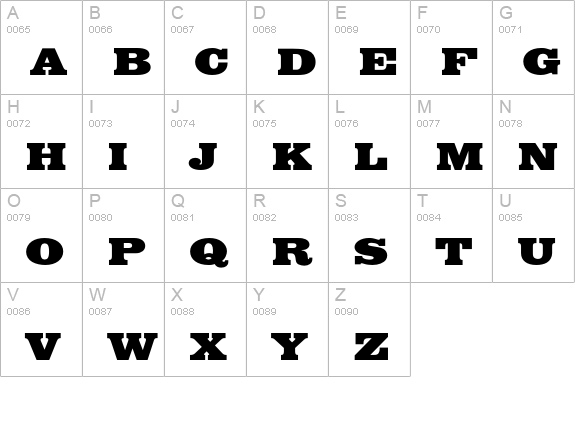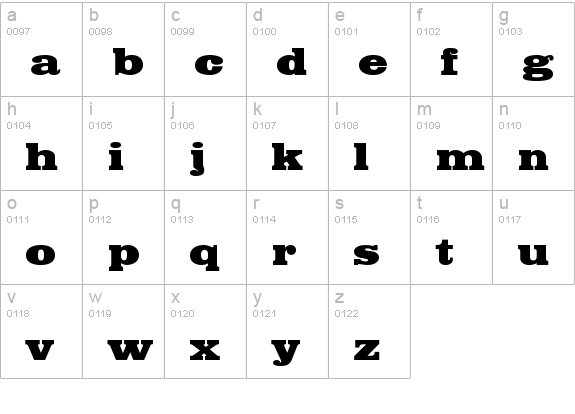
EgyptianEF-BoldExtended Font Details
The EgyptianEF-BoldExtended font is a striking and bold typeface that exudes a sense of power and authority. Its sharp edges and defined lines give it a modern and professional look, making it perfect for headlines, titles, and branding materials. The font's extended width adds to its visual impact, making a bold statement in any design project. What's even better is that the EgyptianEF-BoldExtended font is available for free download at FontsMarket.com. This means you can easily access this impressive typeface and use it in your projects without any cost. Whether you're working on a poster, website, or logo design, this font will surely make a strong impression and elevate your work to the next level. Don't miss out on this fantastic opportunity to enhance your designs with the EgyptianEF-BoldExtended font - download it for free today!